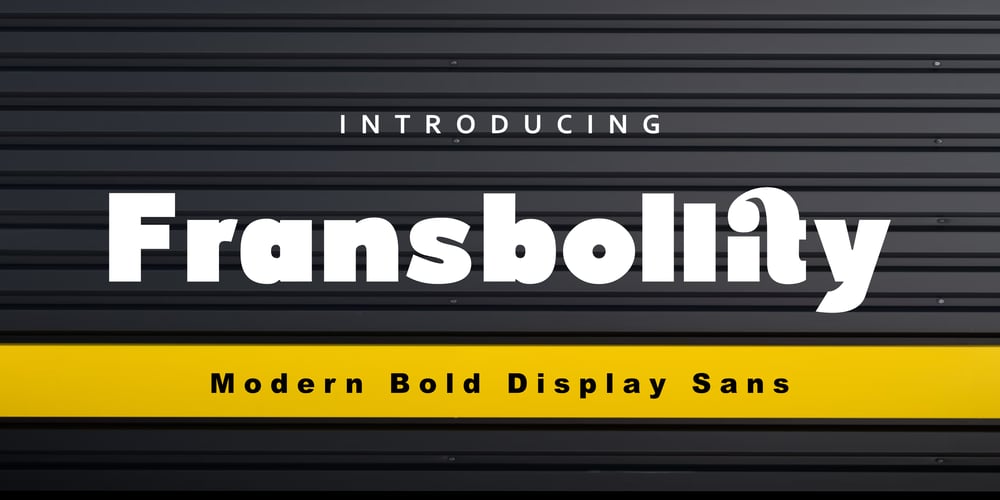
Fransbollity
Fransbollity font
Fransbollity Font Family was designed by Zamjump and published by Zamjump. Fransbollity contains 1 styles and family package options. Introducing Fransbollity Modern Bold Display sans font, designed with a bold body and unique ligatures, making it a standout choice for various projects. Bollity’s thick and impactful appearance is perfect for headlines, logotypes, and more, ensuring your message captures attention. Bollity is versatile enough to enhance branding, advertising, and editorial designs with its modern and dynamic flair. Its distinctive ligatures add a creative flair, blending seamlessly into designs that require a modern and stylish touch. Whether you’re crafting branding materials, promotional content, or eye-catching titles, this font offers versatility and aesthetic appeal, elevating your project’s visual impact.